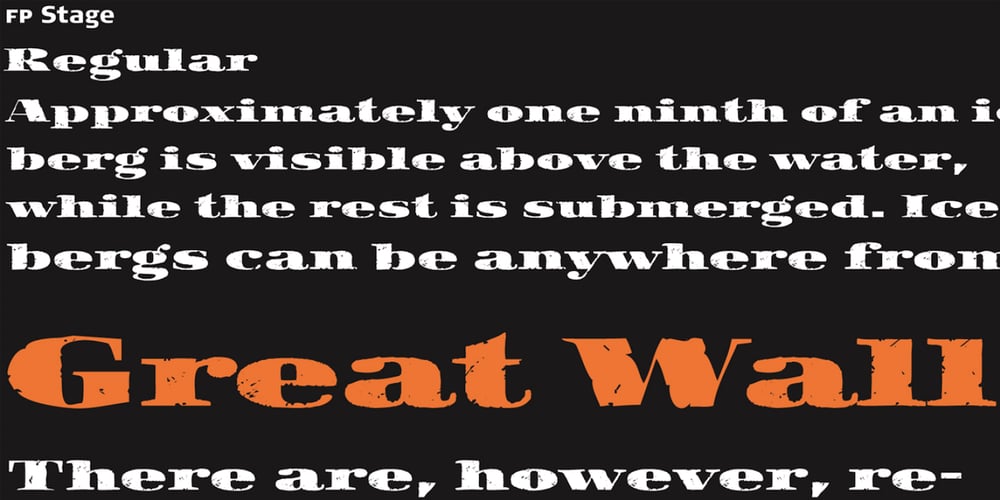
FP Stage
FP Stage font
FP Stage Font Family was designed by Morten Rostgaard Olsen, Ole Berntsen Søndergaard and published by Fontpartners. FP Stage contains 1 styles and family package options. FP Stage was inspired by old Victorian theater posters and corresponding typographic designs.